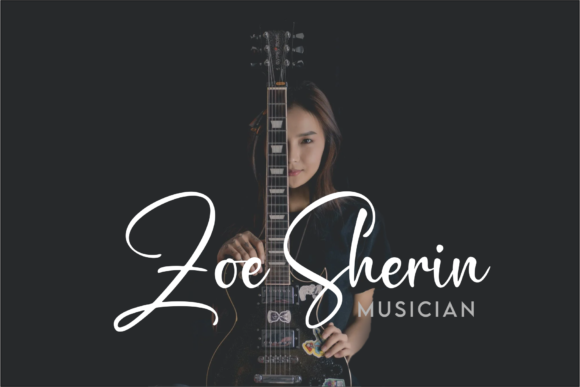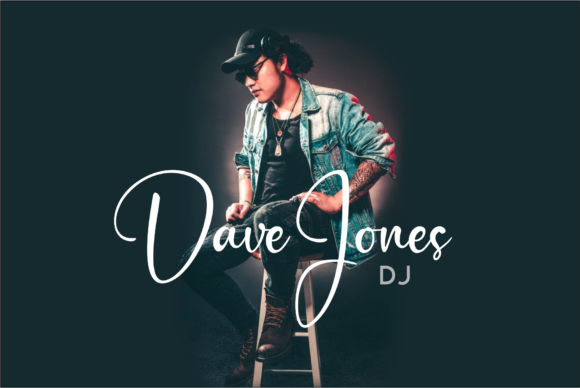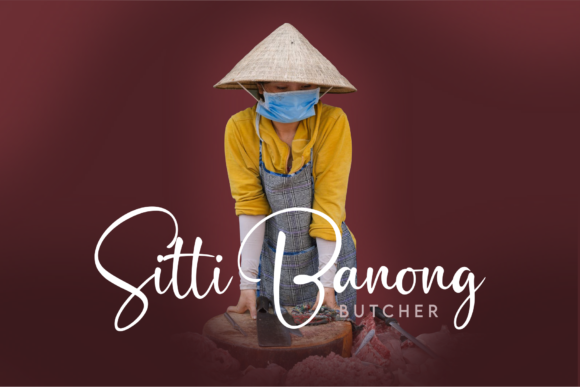
Introduction to Fionetta Font
Fionetta is a thin lettered and graceful script font.
Fall for its ravishing style and use it to create gorgeous wedding invitations, beautiful stationary art, eye-catching social media posts, and much more .
Fionetta Font offers exceptional quality and versatility, making it a valuable addition to your design toolkit. Whether you’re creating for personal projects or commercial use, Fionetta Font delivers professional results.